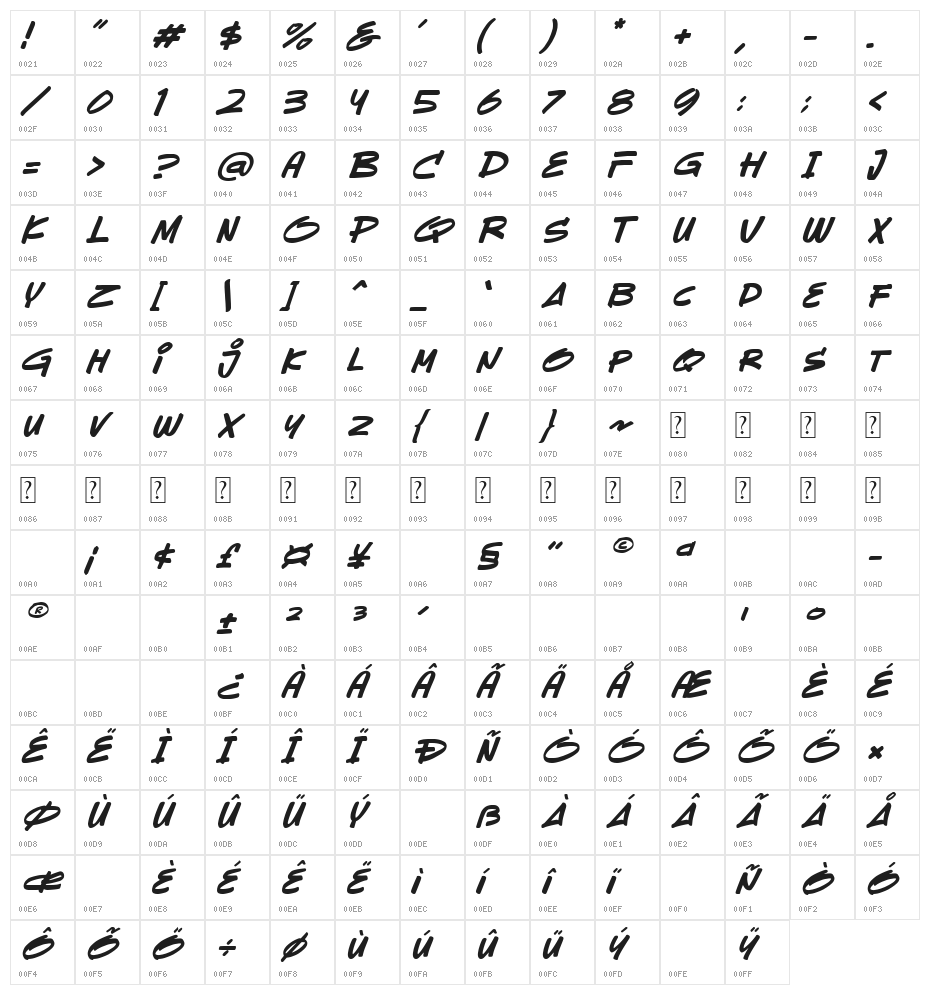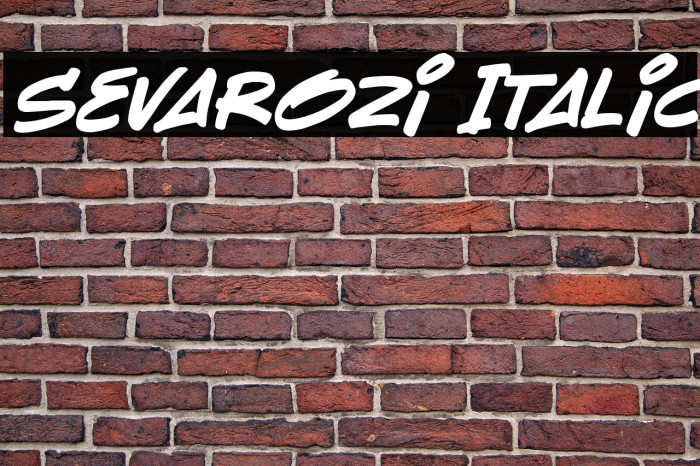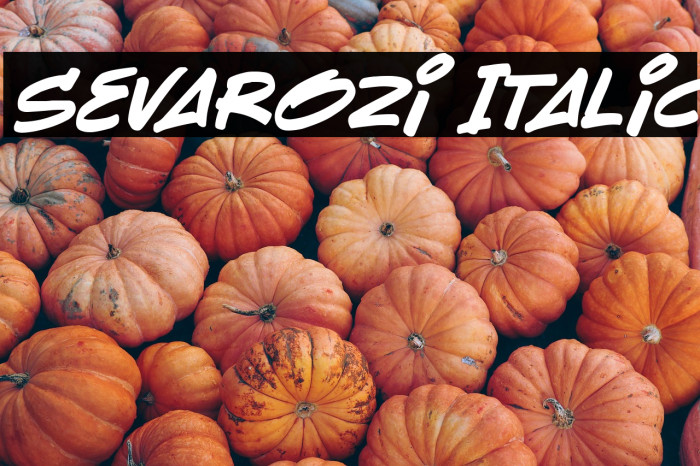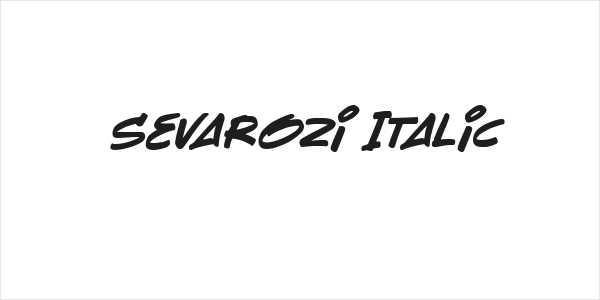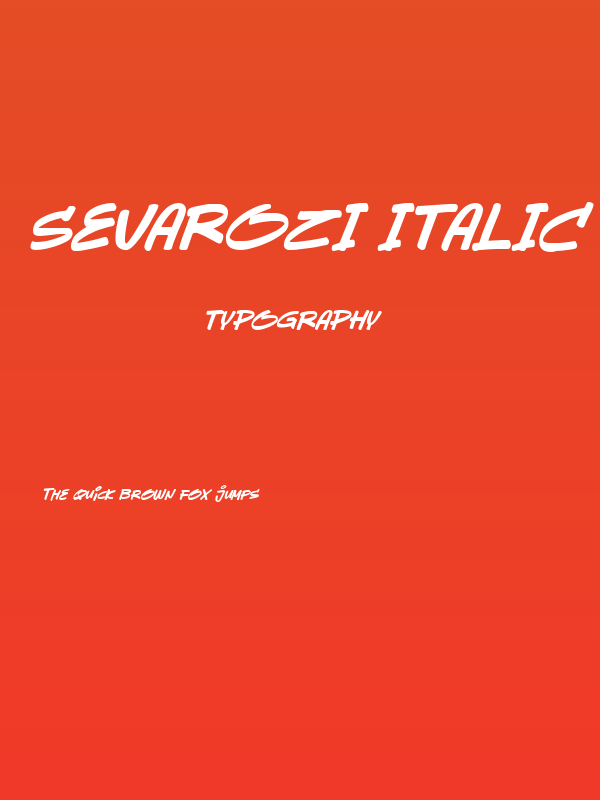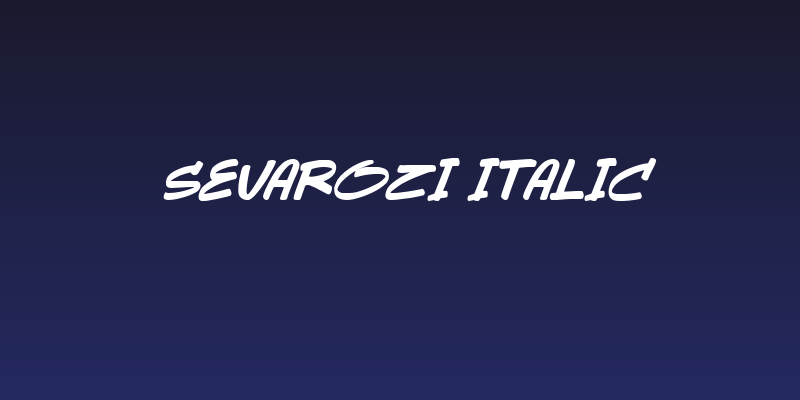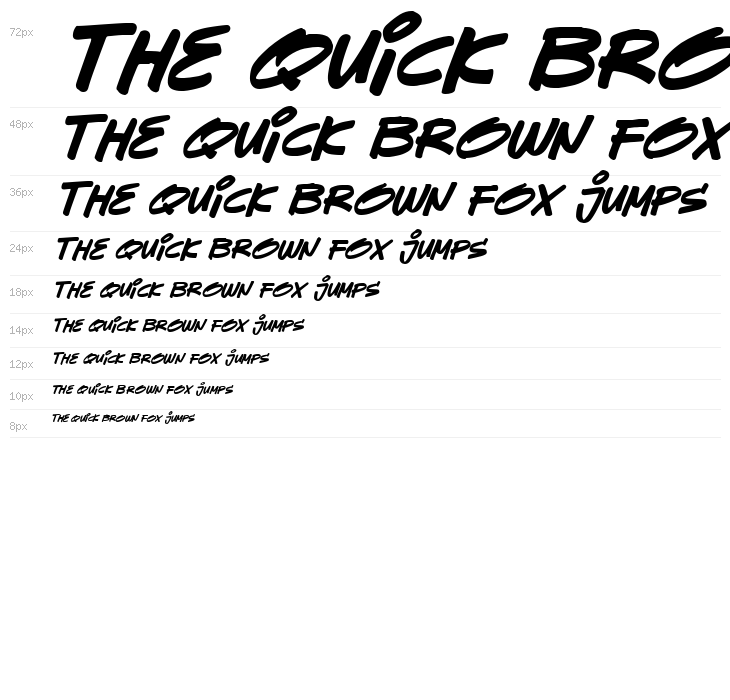
Sevarozi Italic Font
Sevarozi Italic Description
This font features a dynamic and energetic style with a handwritten appearance. The letters are slanted, giving it an italicized look, and the strokes are bold and fluid, creating a sense of motion and expressiveness. The uppercase and lowercase letters maintain a consistent style, with rounded edges and a slight tilt to the right. The numbers and special characters follow the same design principles, ensuring uniformity across all glyphs. The overall impression is one of casual elegance, making it suitable for projects that require a personal touch.